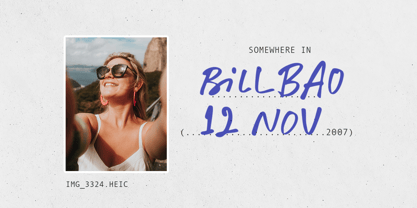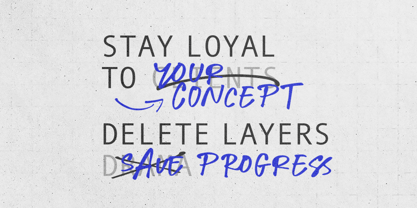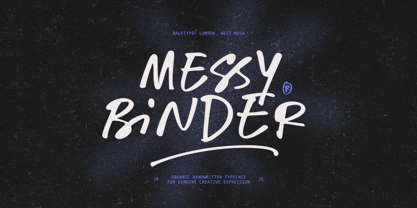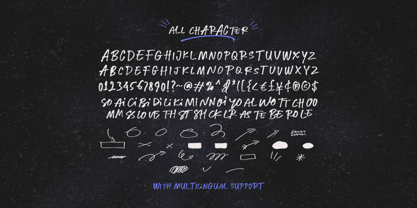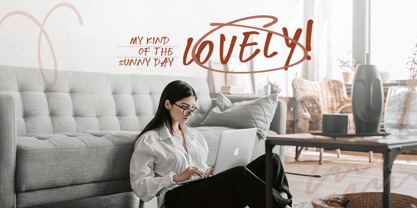
Messy Binder
by Bale Type
The Messy Binder Font Family was designed by Dzikrul Aulia and published by Bale Type. Messy Binder contains 1 styles. More about this family
Messy Binder is a stylish and organic handwritten all caps font. With bunch of ligatures, this font will make your design more looks naturally handwritten. You can use this font for any purposes such as quote, branding, caption, and any project that require messy looks. Messy Binder also included scribble that you can use to add the messiness. This font also support multi language.